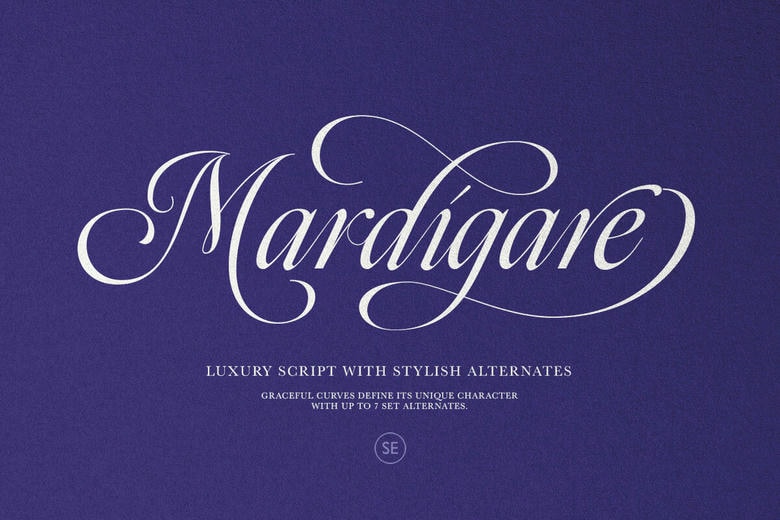
Mardigare Font
Mardigare is a name of luxury and classy script with stylish alternates. This font is suitable for branding, logos, quotes as well as posters. This font is also appropriate for invites of a wedding ceremony or any kind of a marriage event. It allows up to 7 set stylish alternates that can be used making your design beautiful and stunning.
Mardigare Calligraphy Script Font